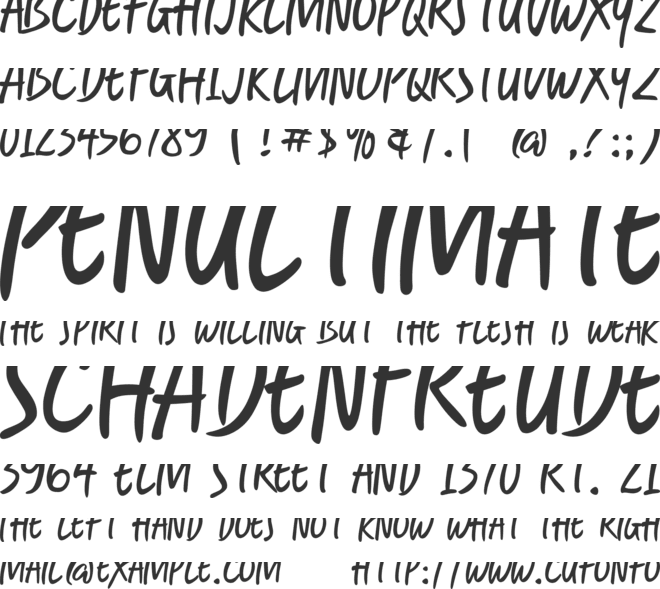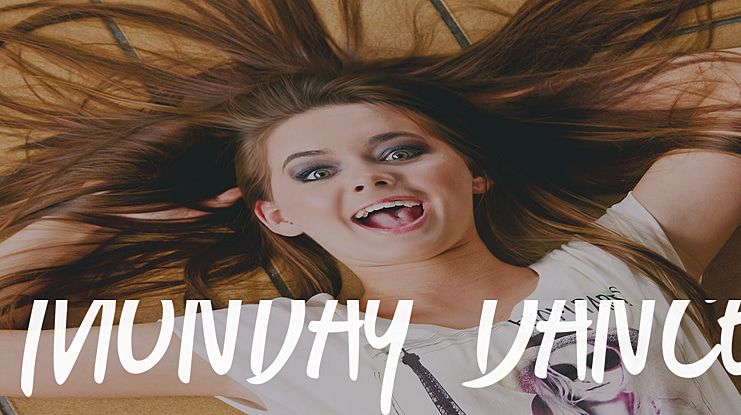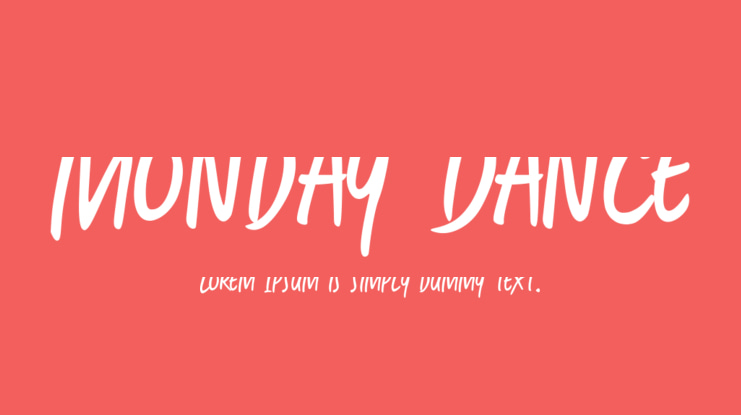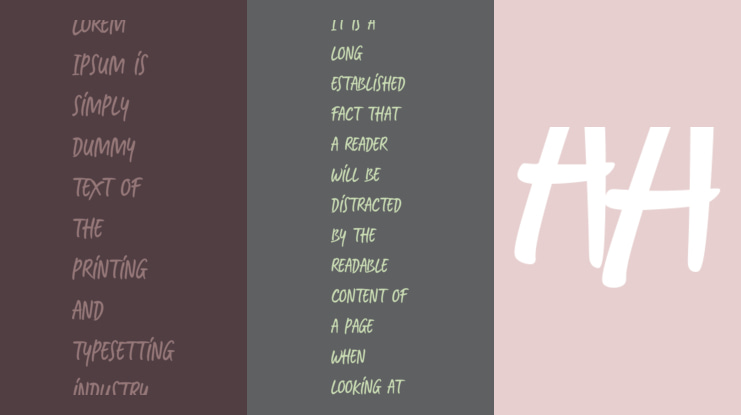
Monday Dance Font
Monday Dance is a cool, simple and playful all caps handwritten font. Incredibly versatile, this font fits a wide pool of designs, elevating them to the highest levels. Add this font to your favorite creative ideas and notice how it makes them come alive!